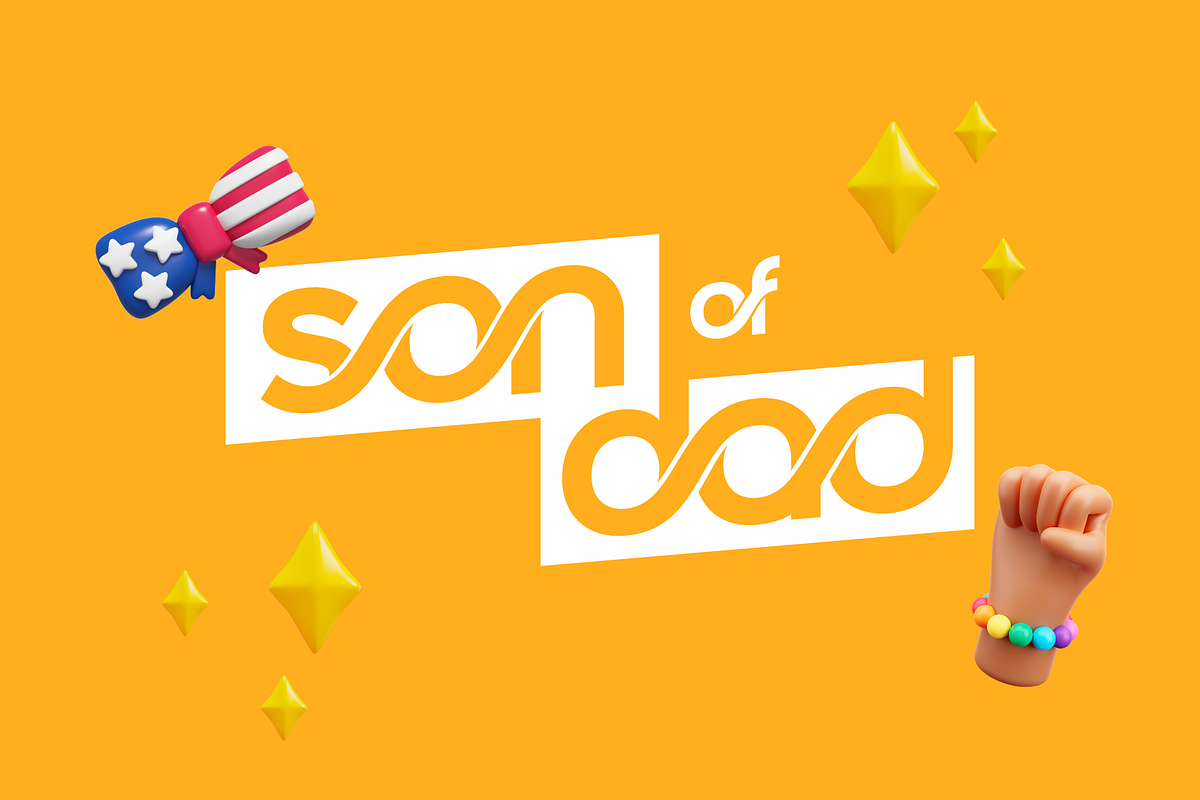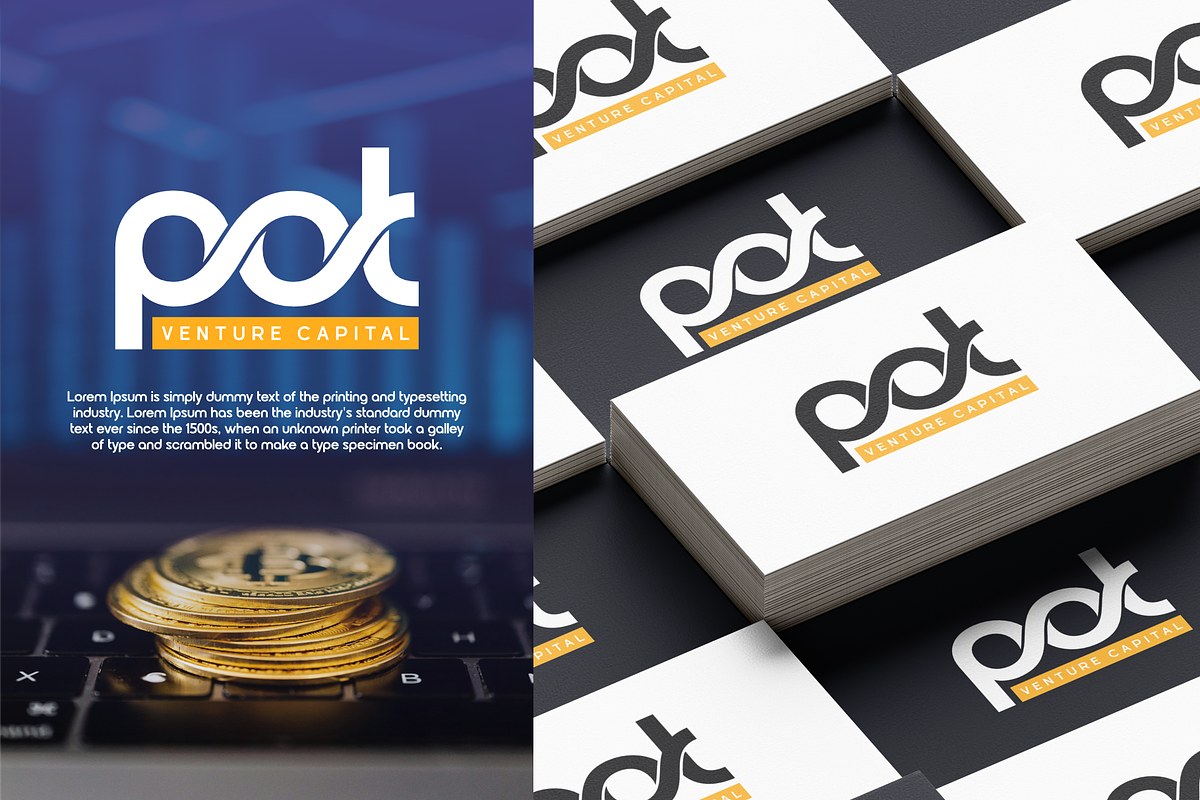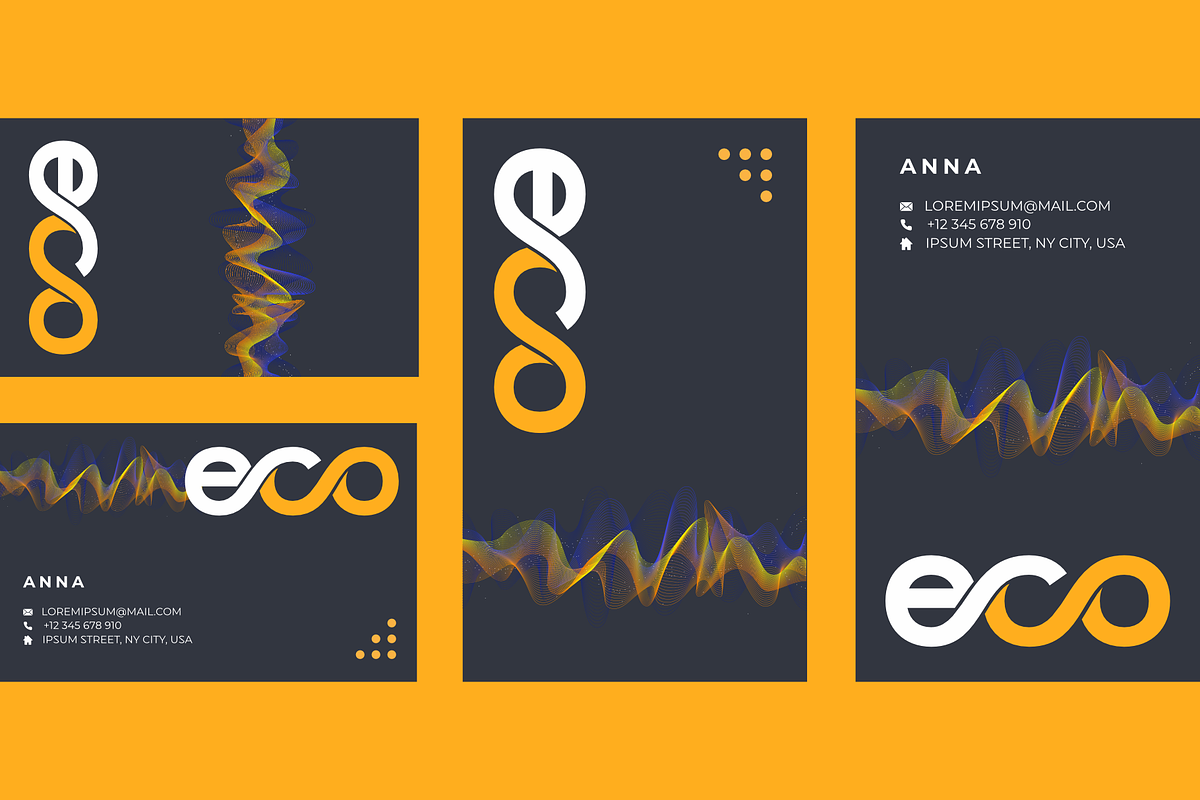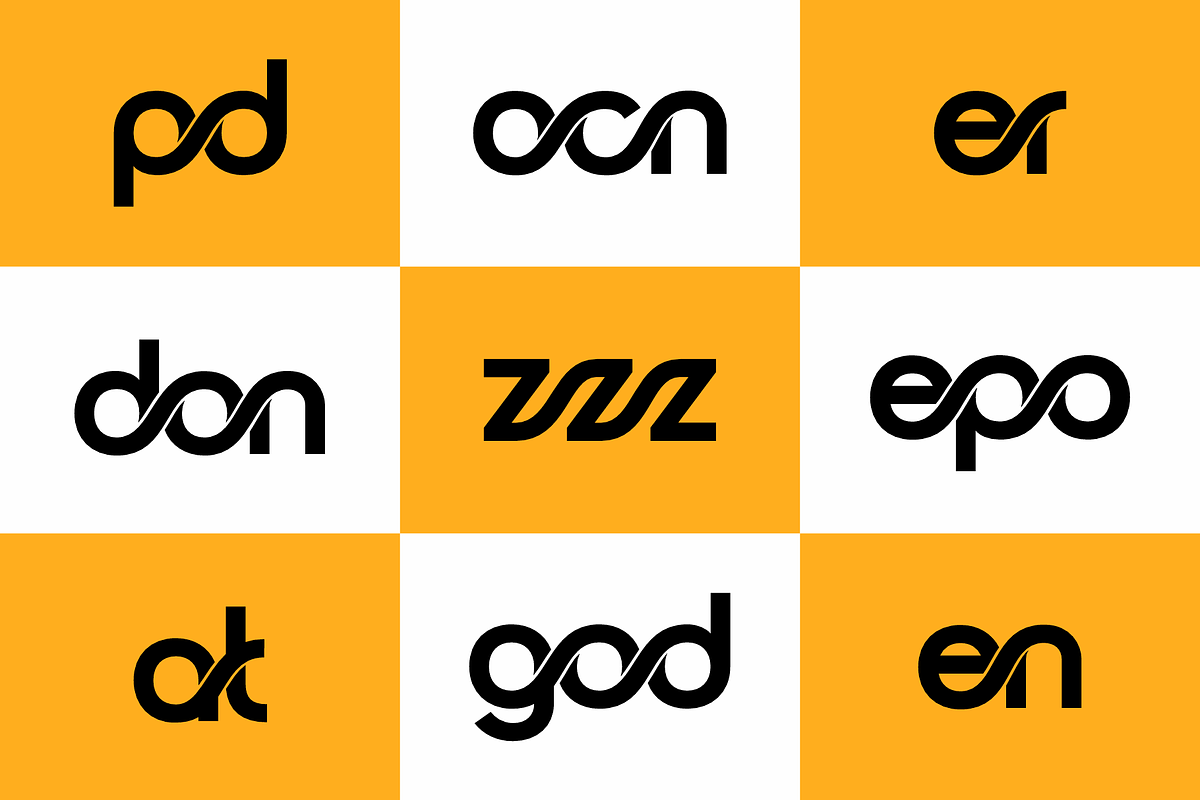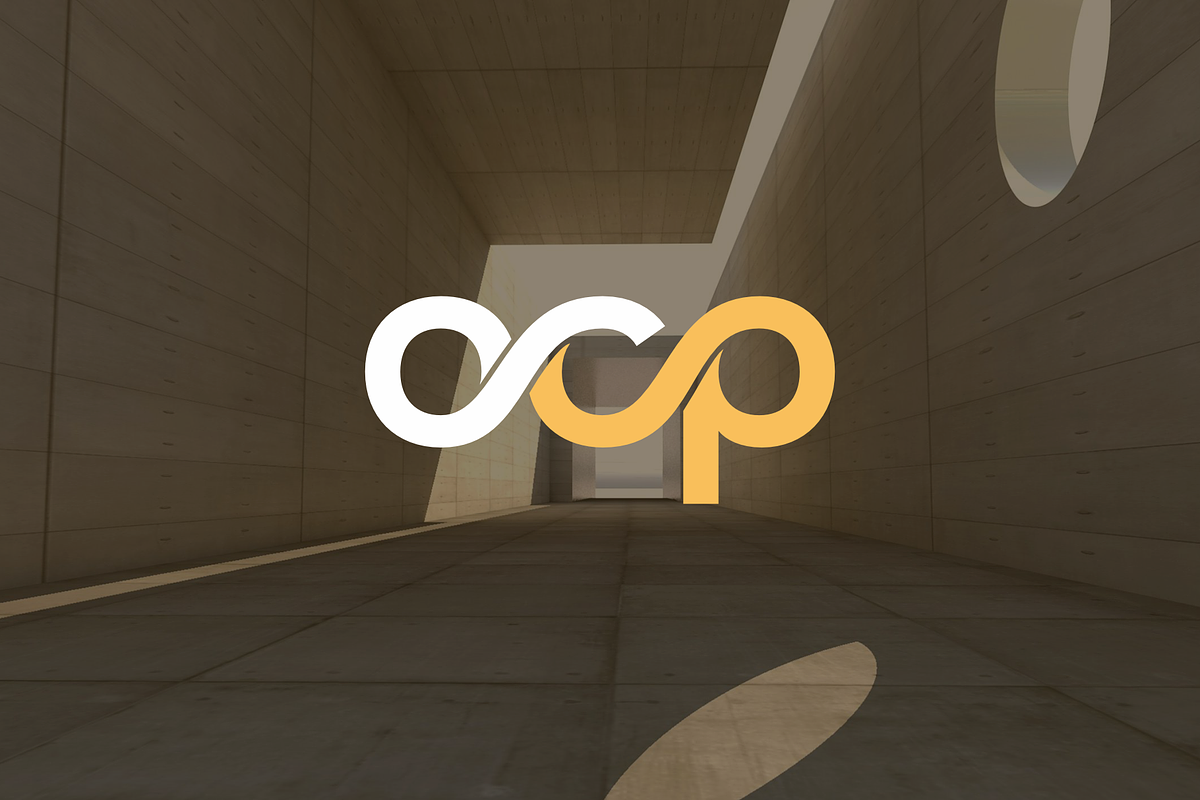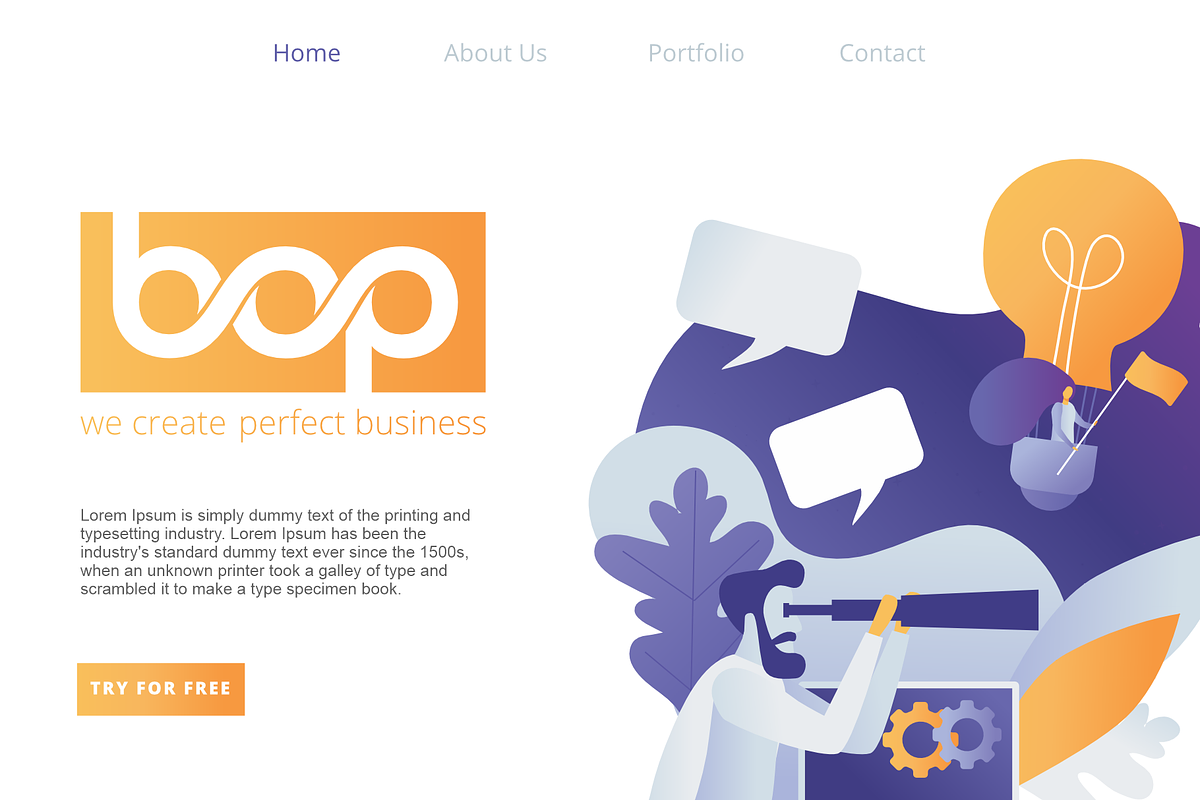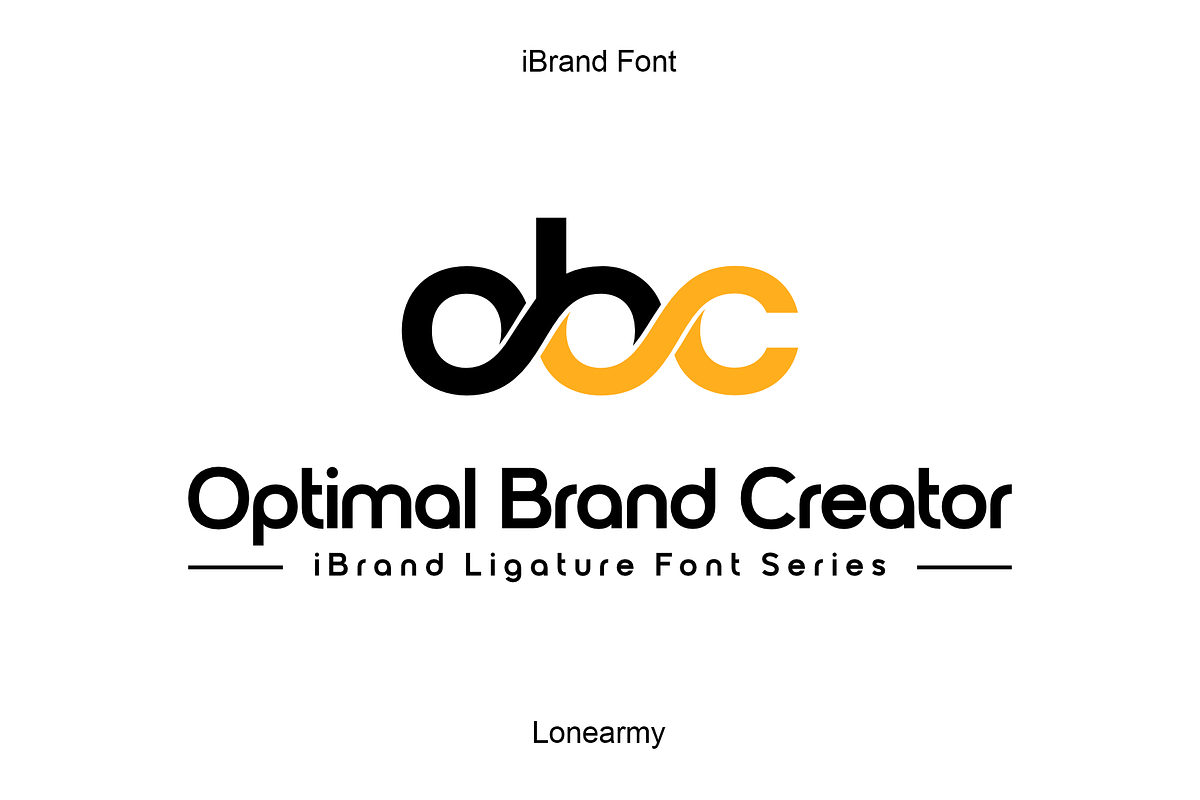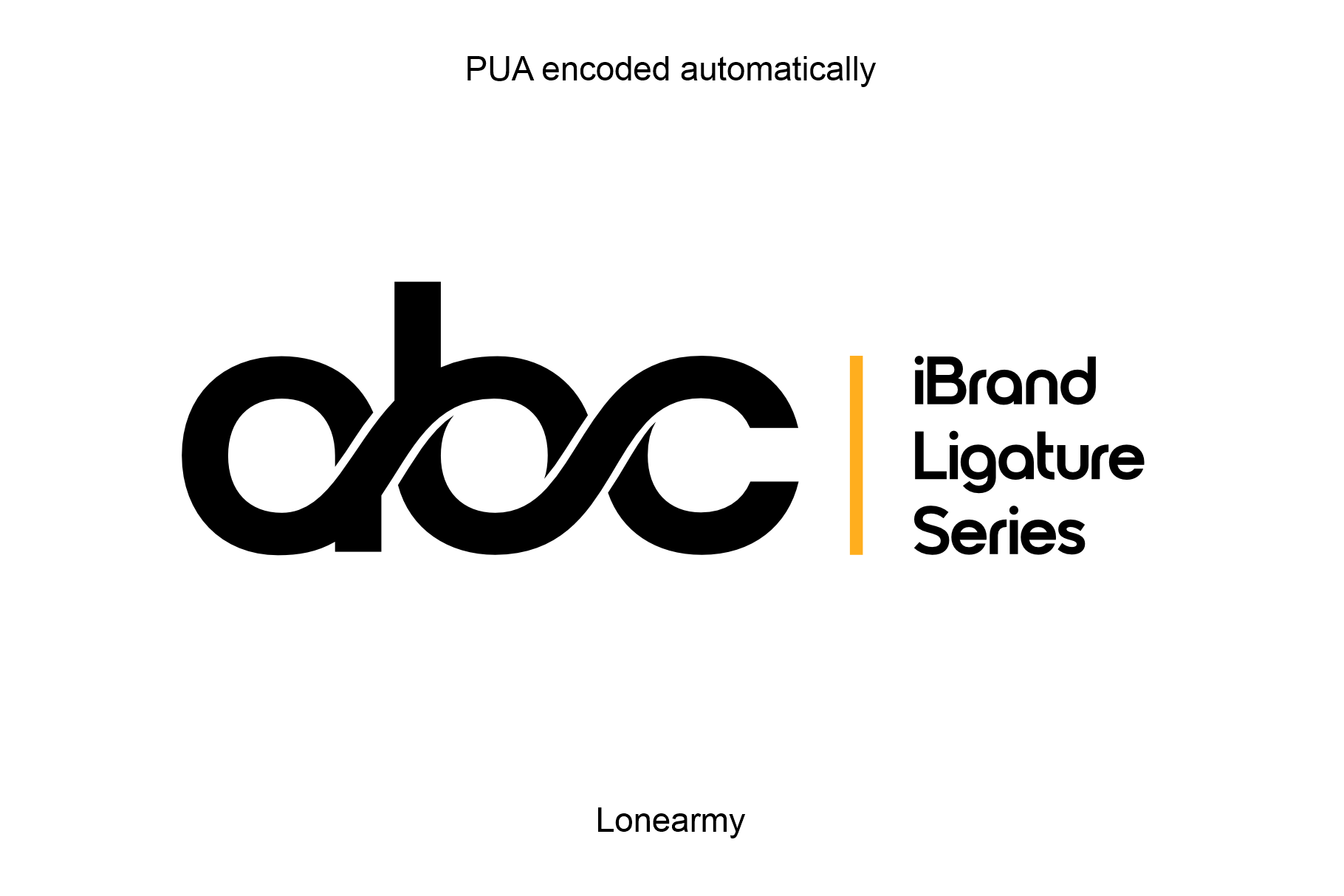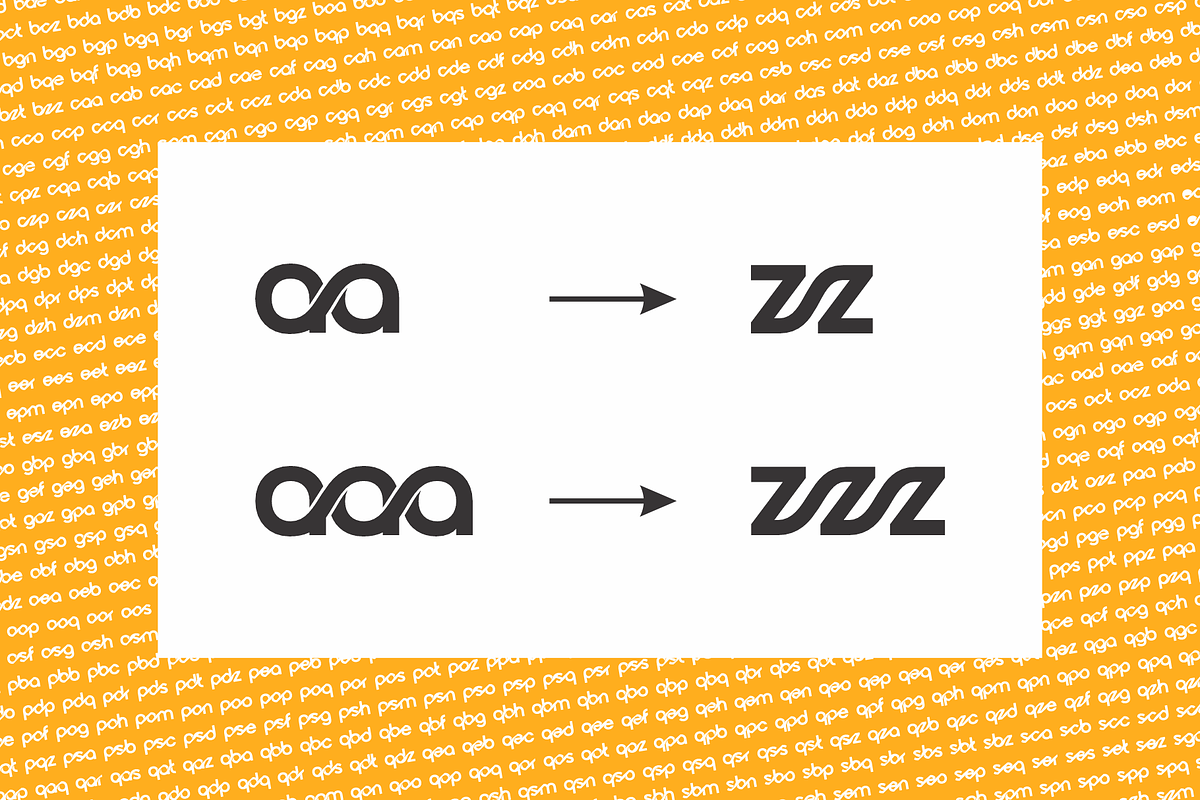
iBrand Ligature - Logo Font
iBrand Font is a meticulously crafted typeface designed specifically for logos, branding, headers, and titling. Now enhanced with a sleek ligature version, it's the perfect choice for creating unique and memorable icon logos. With precise kerning and spacing tailored for impactful branding materials, iBrand Font ensures your designs make a lasting impression. Please note, iBrand Font is not suitable for body text, but excels in visual applications where every detail matters. Elevate your design projects with iBrand Font today!!